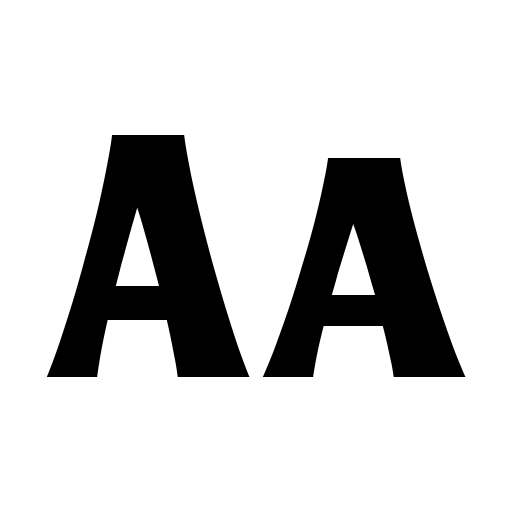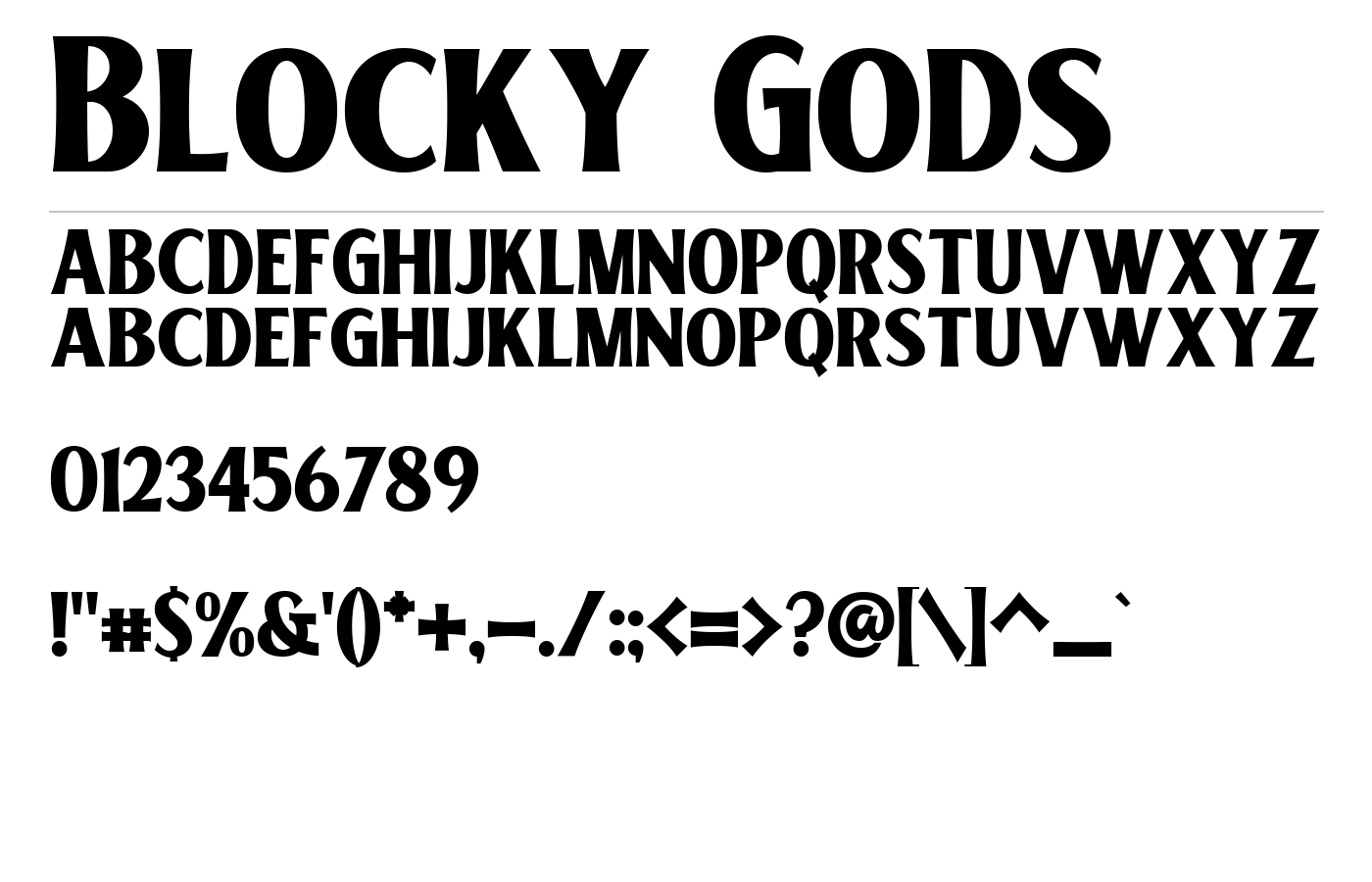
Blocky Gods is a bold, condensed sans serif font with a playful yet strong character, featuring slightly irregular shapes that give it a handcrafted, artistic feel. Its high contrast strokes and unique letterforms make it perfect for eye-catching headlines, logos, and creative branding that seeks a distinctive and dynamic personality. This font works well where a bold statement combined with a touch of whimsy is desired, such as posters, packaging, and editorial designs.
Blocky Gods Font
About Blocky Gods Font
| Font family | Blocky Gods Font |